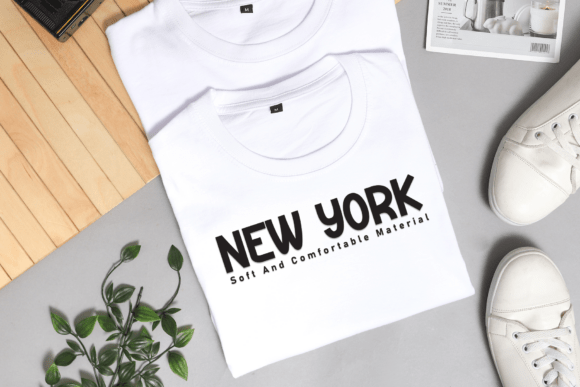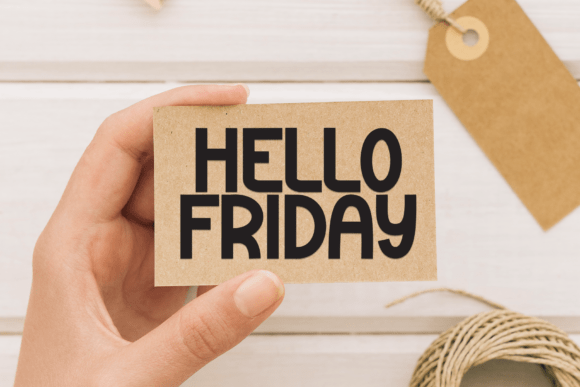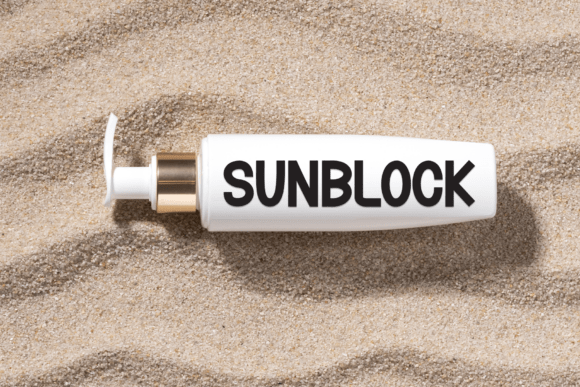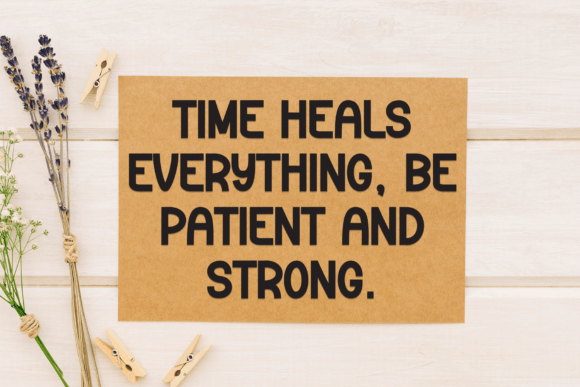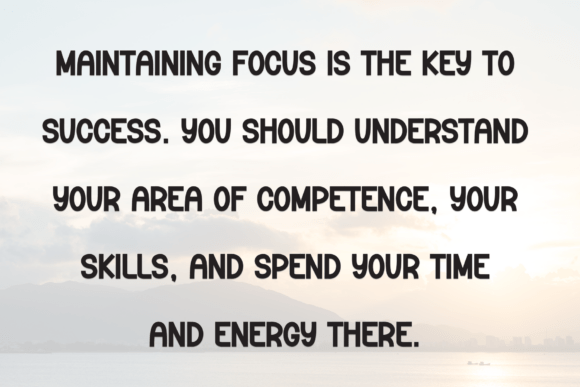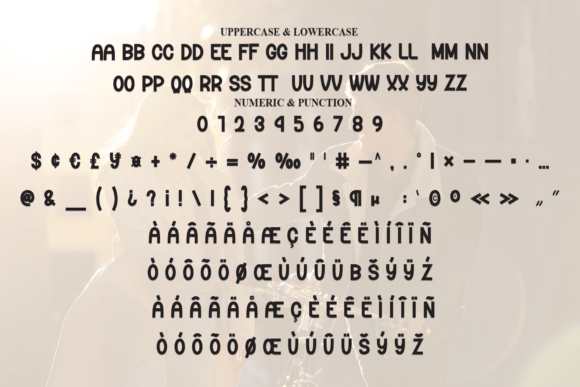
Dreaming Romance Font: The Perfect Choice for Your Design Projects
Are you looking for a font that can add a touch of warmth and clarity to your design projects? Look no further than the Dreaming Romance font. This casual and neat display font is designed to bring a sense of approachability and charm to your branding, headlines, and everyday designs.
Clean Structure and Approachable Style
The Dreaming Romance font boasts a clean structure that makes it easy to read and understand. Its approachable style is perfect for designers and crafters who want to create a friendly and inviting atmosphere in their projects. Whether you’re working on a logo, brochure, or website, this font is sure to deliver.
Balanced Letterforms for Readability and Charm
One of the standout features of the Dreaming Romance font is its balanced letterforms. Each letter is carefully crafted to offer the perfect balance of readability and charm. This makes it ideal for use in a variety of design projects, from headlines and titles to body text and descriptions.
Perfect for Branding, Headlines, and Everyday Designs
The Dreaming Romance font is incredibly versatile, making it perfect for use in a wide range of design projects. Here are just a few examples of how you can use this font:
- Branding: Use the Dreaming Romance font to create a logo or brand identity that feels warm and approachable.
- Headlines: Add a touch of elegance and sophistication to your headlines with this beautiful display font.
- Everyday Designs: Use the Dreaming Romance font to add a personal touch to your everyday designs, such as flyers, brochures, and social media graphics.
Why Choose the Dreaming Romance Font?
There are many reasons why the Dreaming Romance font is a great choice for designers and crafters. Here are just a few:
- Unique and Eye-Catching: This font is sure to grab attention and make your designs stand out.
- Easy to Read: The clean structure and balanced letterforms make it easy to read and understand.
- Versatile: Use it in a wide range of design projects, from branding and headlines to everyday designs.
- Warm and Inviting: This font is perfect for creating a friendly and inviting atmosphere in your designs.
Tips for Using the Dreaming Romance Font
Here are a few tips for getting the most out of the Dreaming Romance font:
- Use it as a Display Font: This font is perfect for use as a display font, so don’t be afraid to use it to add a touch of elegance and sophistication to your headlines and titles.
- Pair it with Other Fonts: Experiment with pairing the Dreaming Romance font with other fonts to create a unique and eye-catching combination.
- Use it in Digital and Print Designs: This font is versatile enough to be used in both digital and print designs, so don’t be afraid to experiment with different mediums.
In conclusion, the Dreaming Romance font is a beautiful and versatile display font that is perfect for designers and crafters. Its clean structure, approachable style, and balanced letterforms make it easy to read and understand, while its unique and eye-catching design is sure to grab attention. Whether you’re working on a branding project, headline, or everyday design, this font is sure to deliver. So why not give it a try and see the difference it can make in your designs?